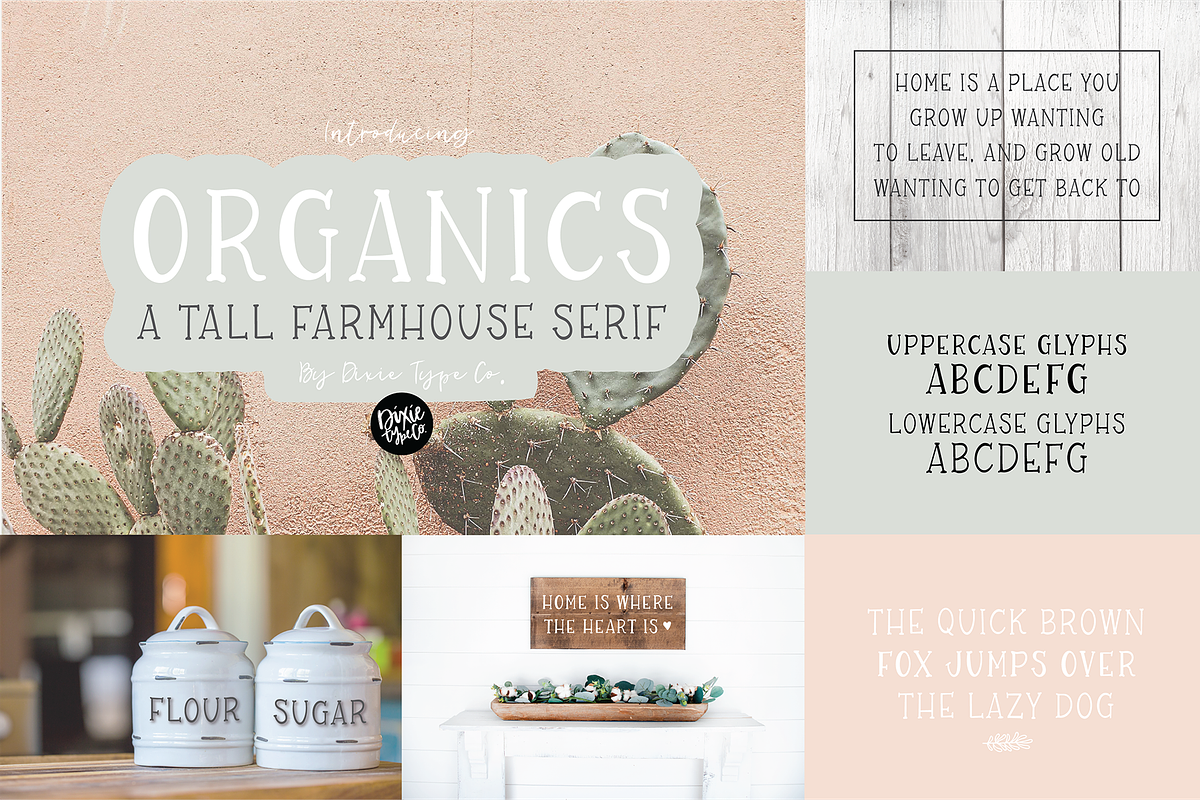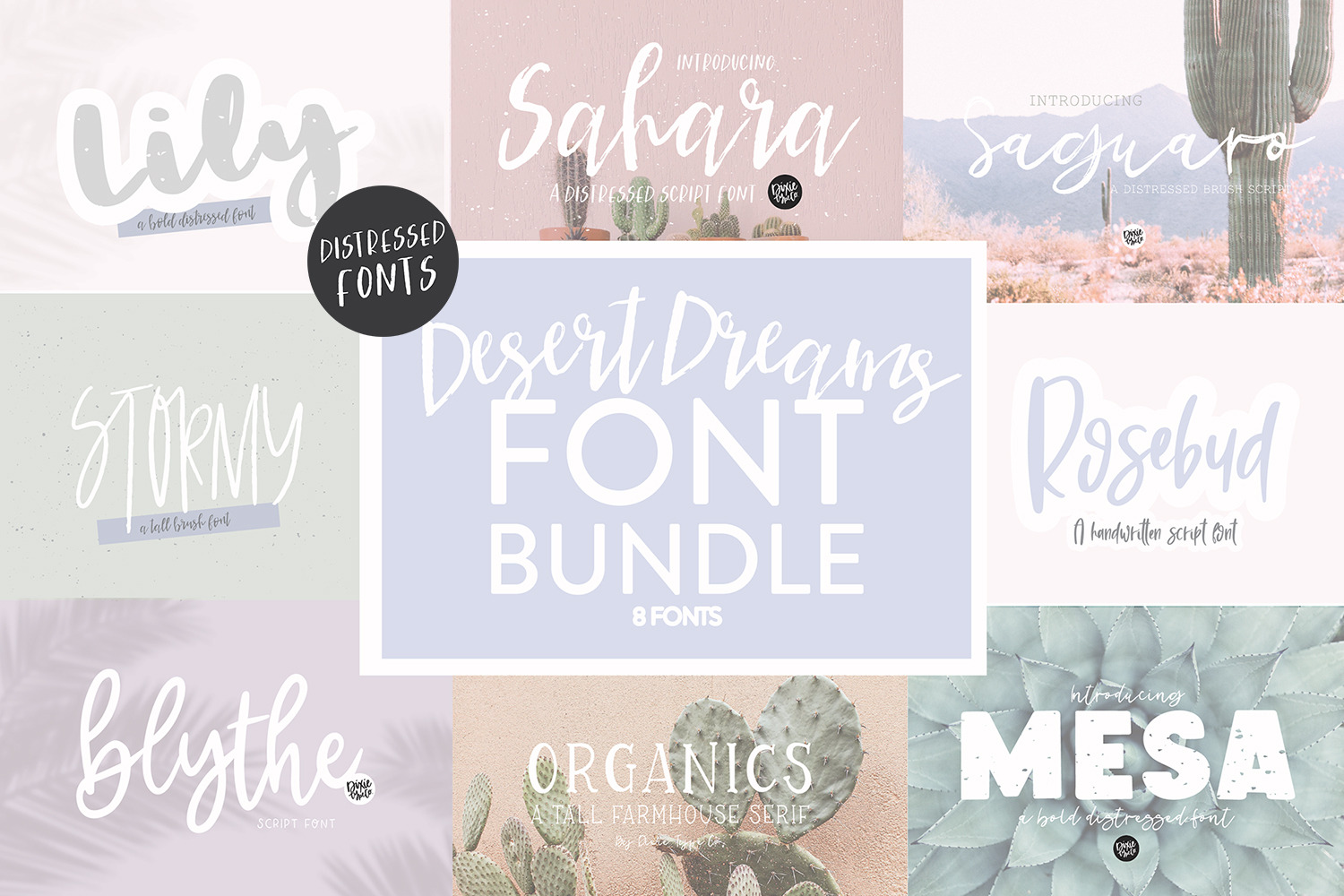
DESERT DREAMS Lettered Font Bundle
**NOTE: A few of these fonts are not ideal for cut projects. Sahara, Saguaro, and Stormy are distressed fonts.
These fonts were all hand-lettered with a brush and ink, or iPad Pro.
The 8 fonts included are:
SAHARA MESA SAGUARO ROSEBUD STORMY ORGANICS BLYTHE LILY